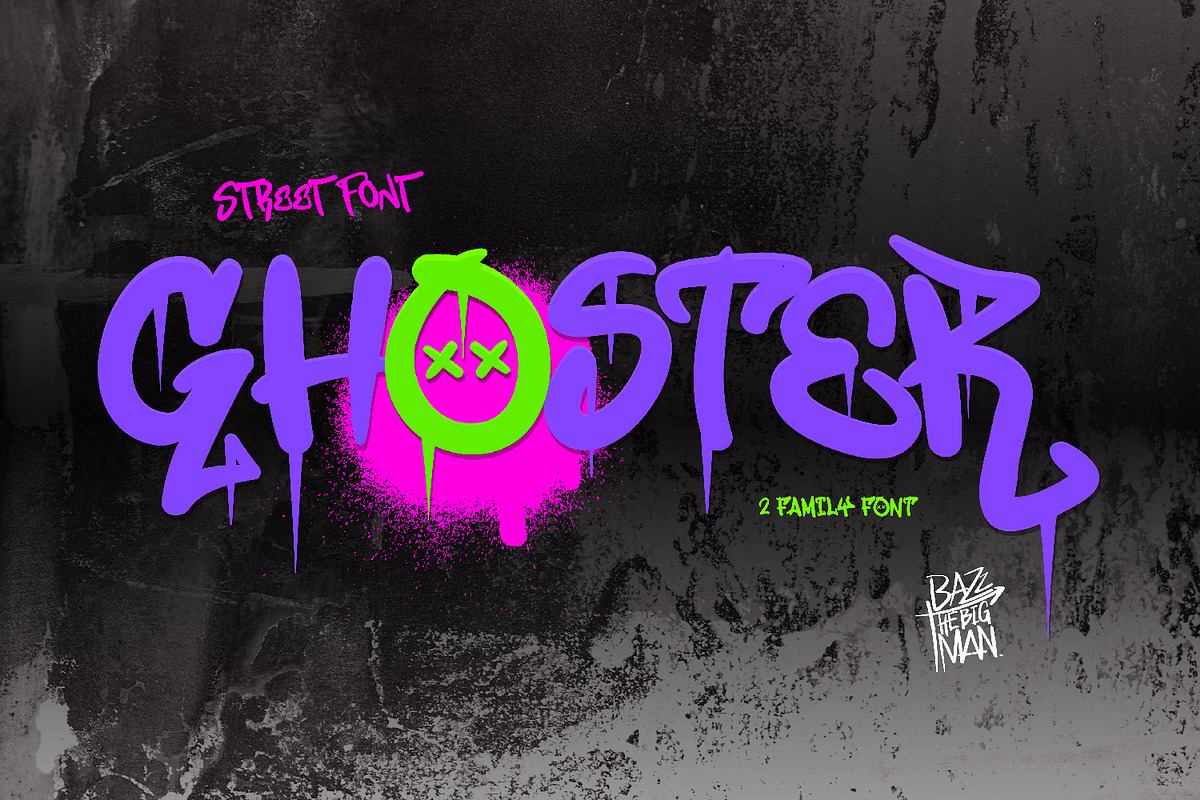
Ghoster Font Free Download is a bold and spooky typeface perfect for adding mystery, thrill, and a touch of the supernatural to your designs. Please note, you are required to purchase this font for commercial use. It is available for free download for testing and personal projects only.
With its jagged edges, eerie curves, and Halloween-ready vibe, Ghoster is ideal for horror movie titles, haunted house flyers, party invitations, scary game graphics, and creepy merch designs. It instantly gives your typography a chilling atmosphere with bold personality.